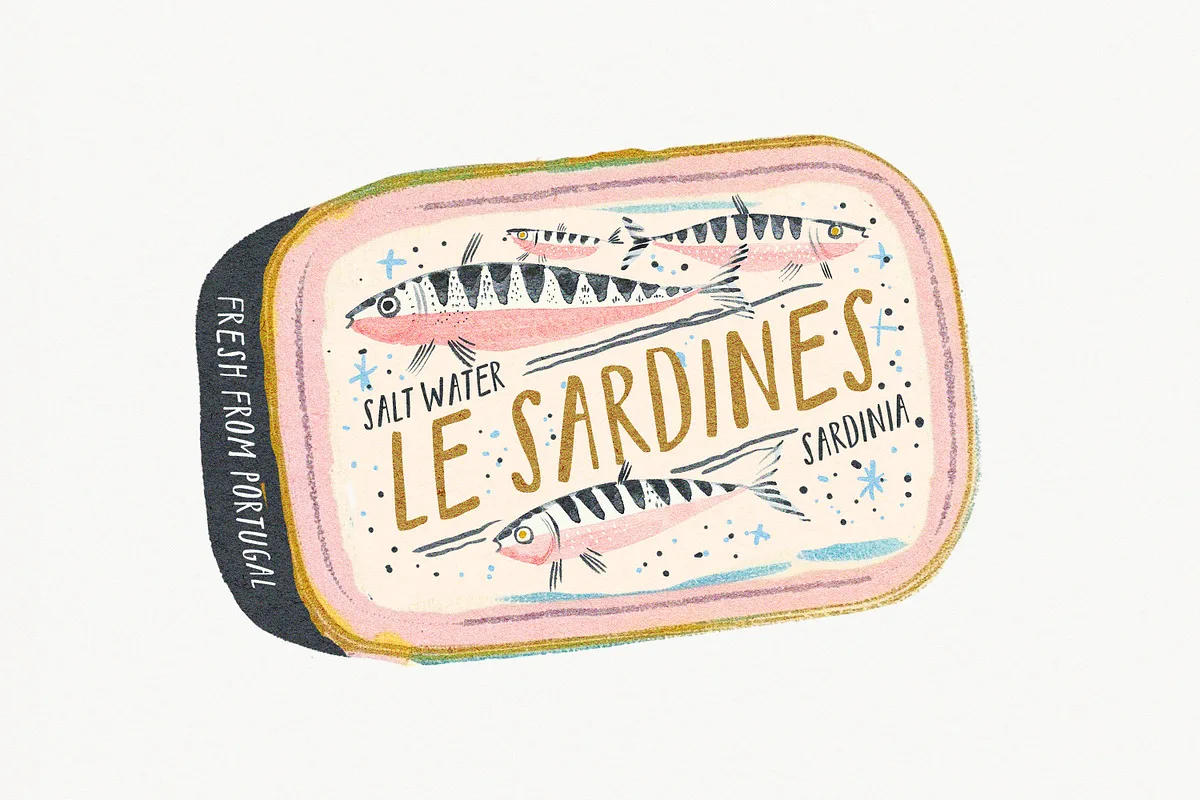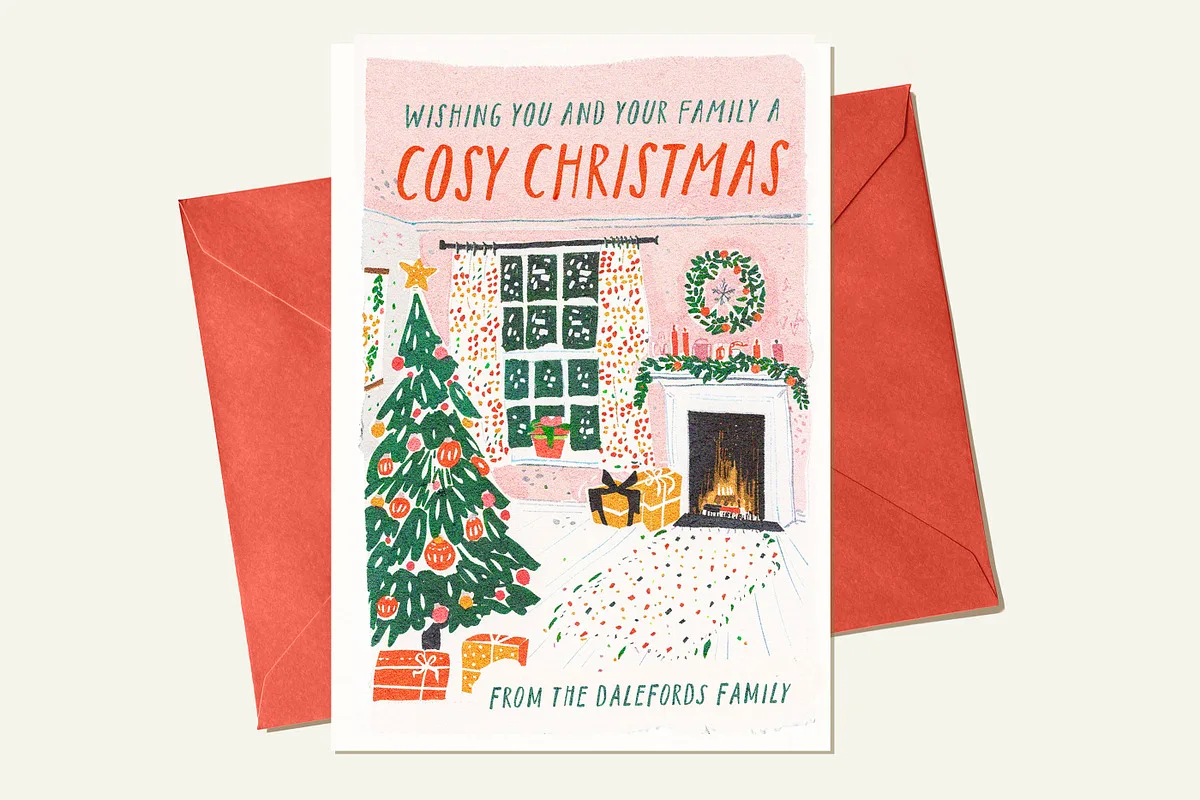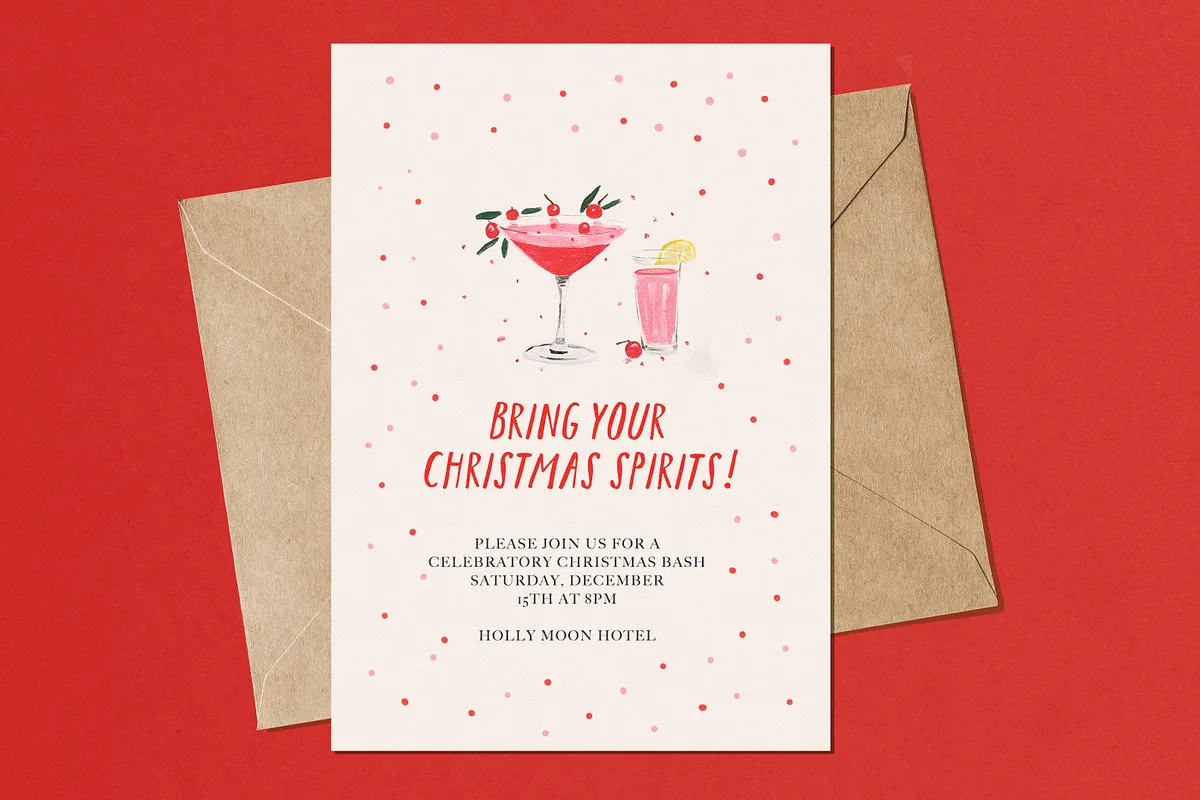
Hopefully just in time for your Christmas greeting cards! Say hello to Holiday Spirit! A quirky and playful little all caps font.
Holiday Spirit hates sticking to the rules! Anything but neat and tidy, its perfect for a cheeky, casual handwritten look.
It comes in two versions – Regular and ‘Wonky’ – Wonky has a smidgeon extra quirk thrown in 🙂 The uppercase keystrokes have slightly differing all-caps to the lowercase keystrokes, so you can mix and match for more authenticity if you like.
Perfect for Greetings, Illustrative Works, playful branding and labels, and anything that needs a little cheeky ‘quirk’.